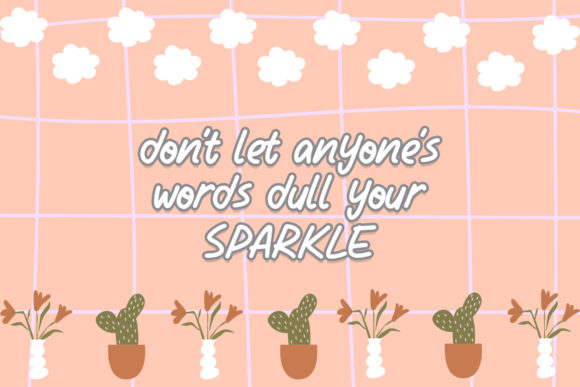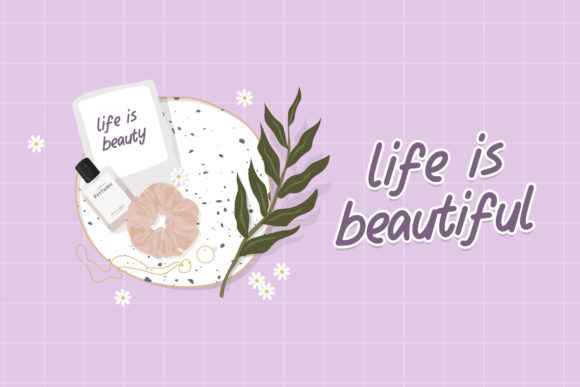
Pink Daisy Font
db-ku.com - Script & Handwritten -- Pink Daisy is a lovely, aesthetic handwritten font inspired by real handwriting. It will make all of your creations seem authentic, charming, and simply amazing!